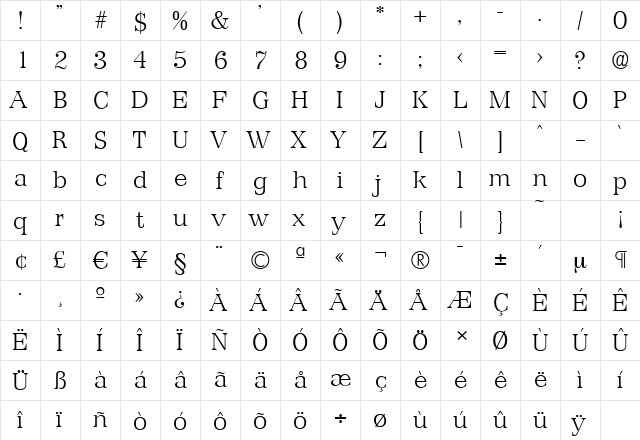
PriamosSerial-Xlight Regular
Design Context for PriamosSerial-Xlight Typeface
PriamosSerial-Xlight takes a measured approach to typography — its balanced proportions and neutral character make it a reliable workhorse for both digital and print work. Its slender proportions lend an understated elegance to any composition.